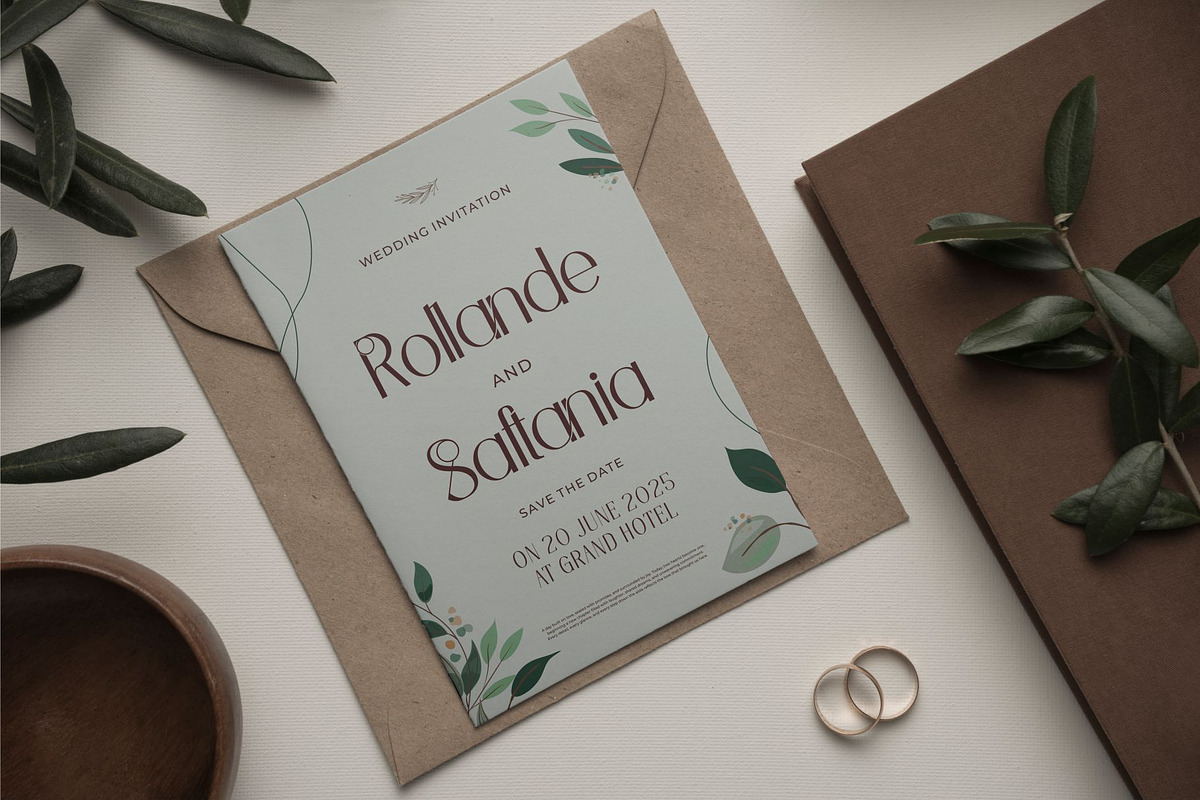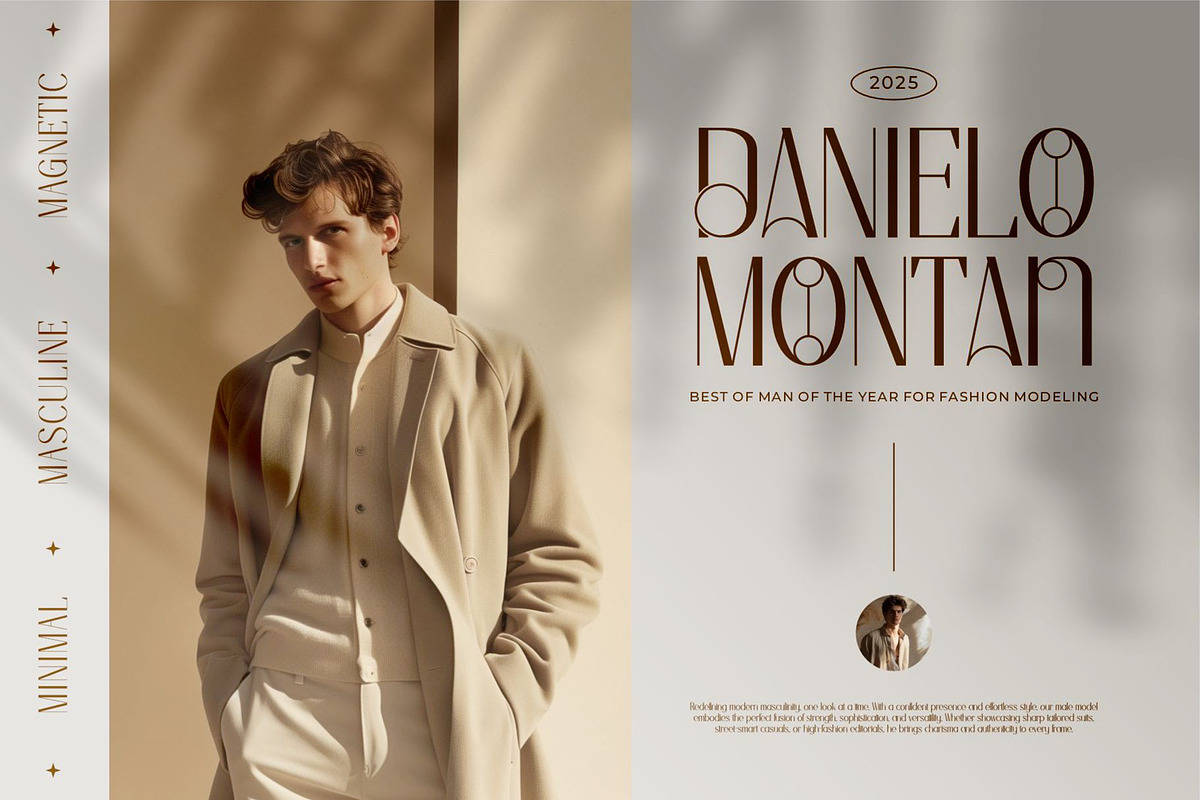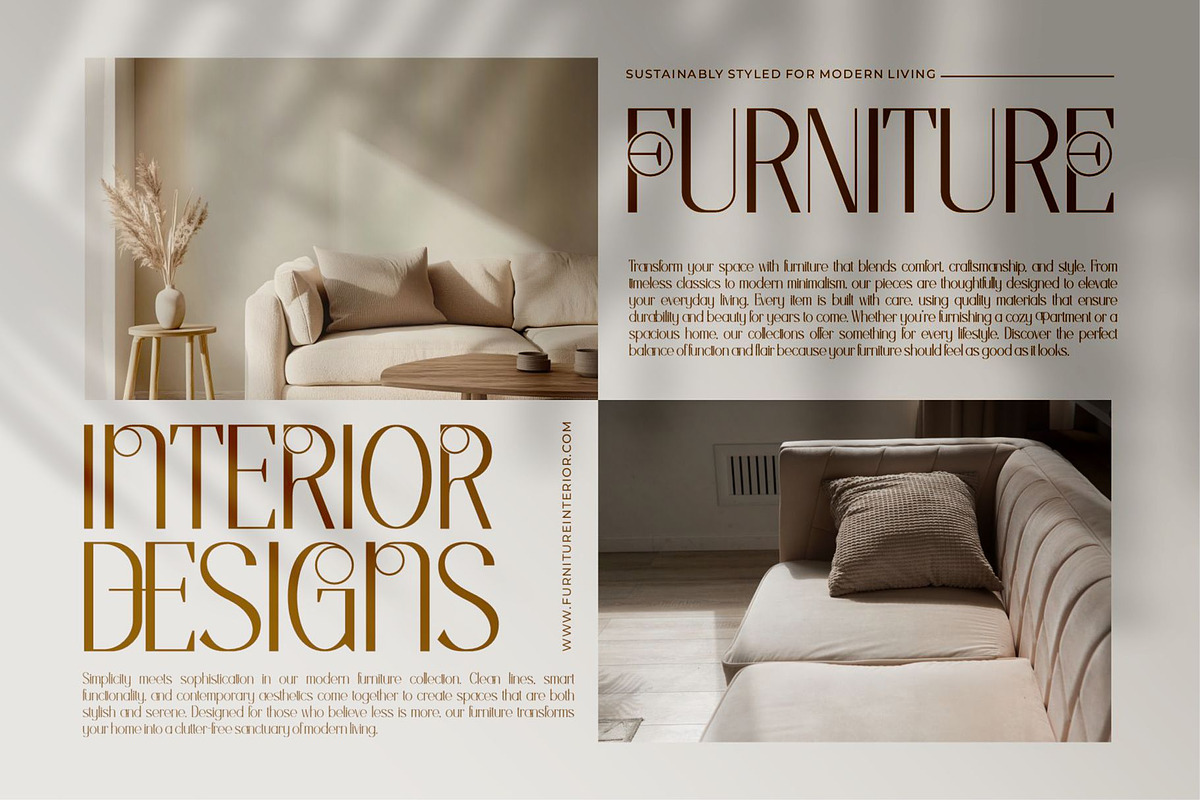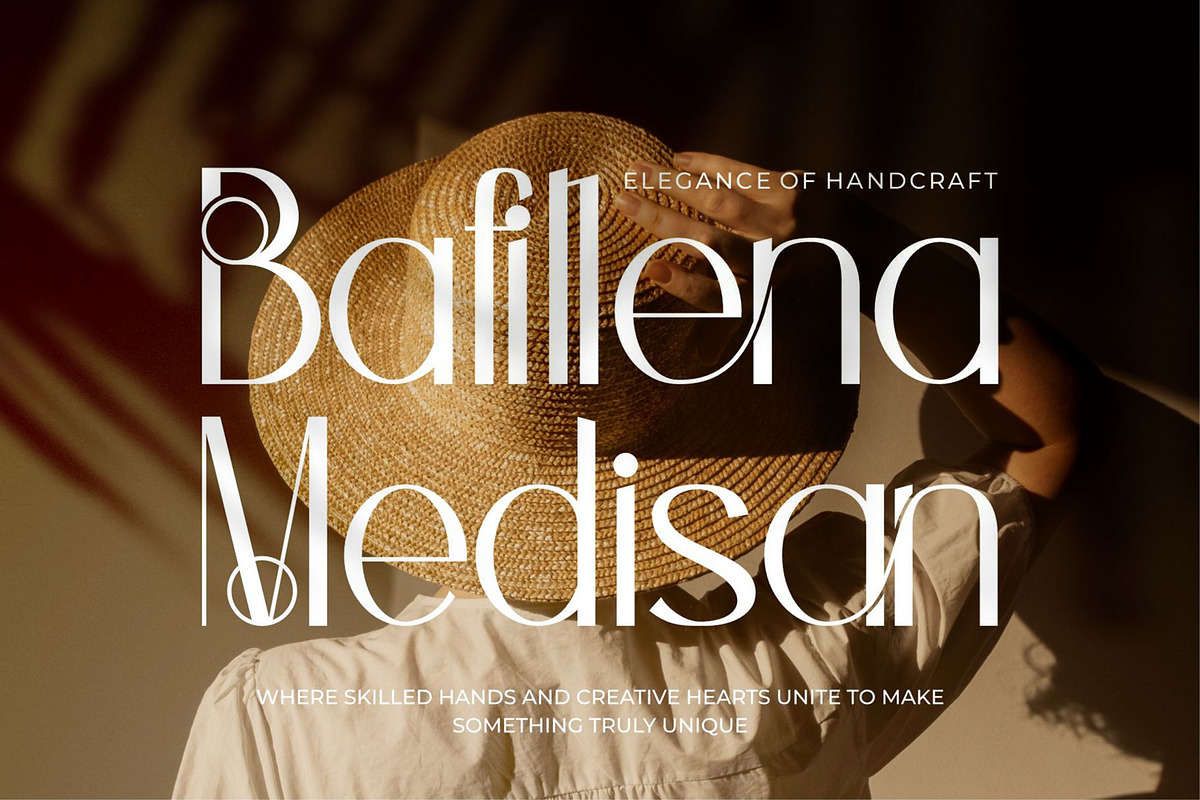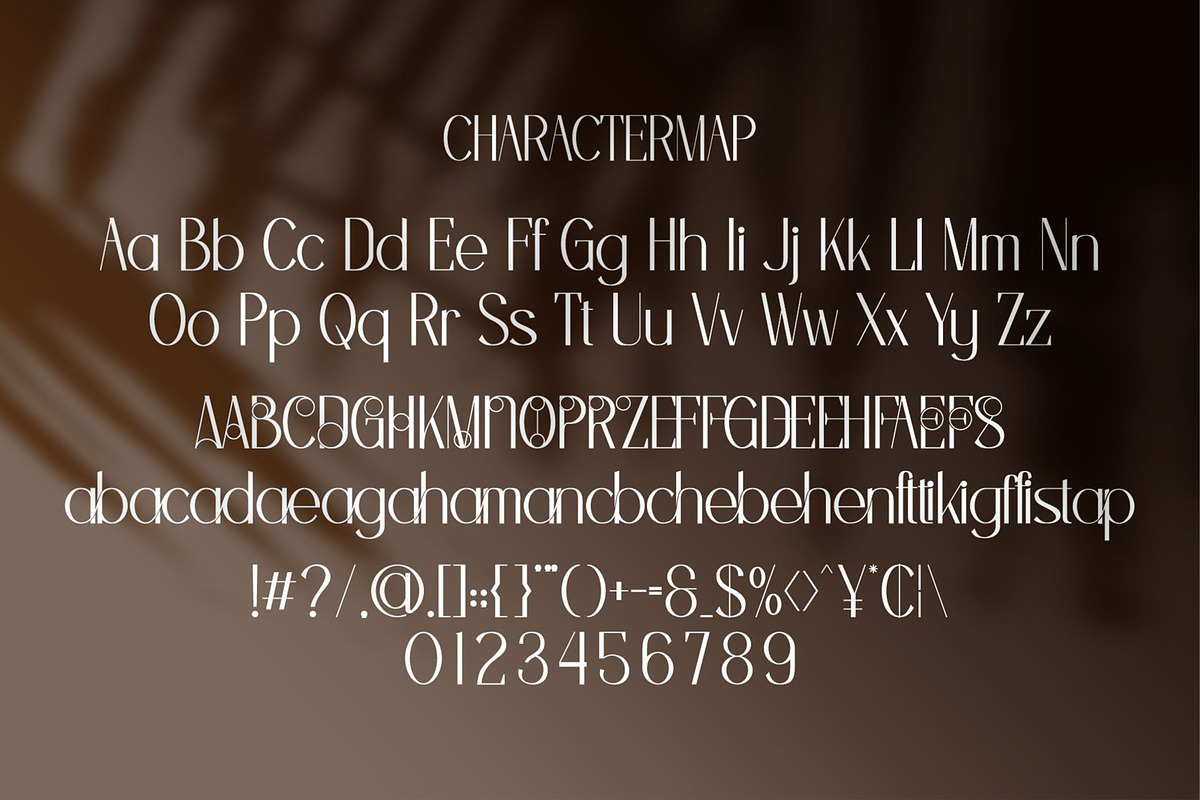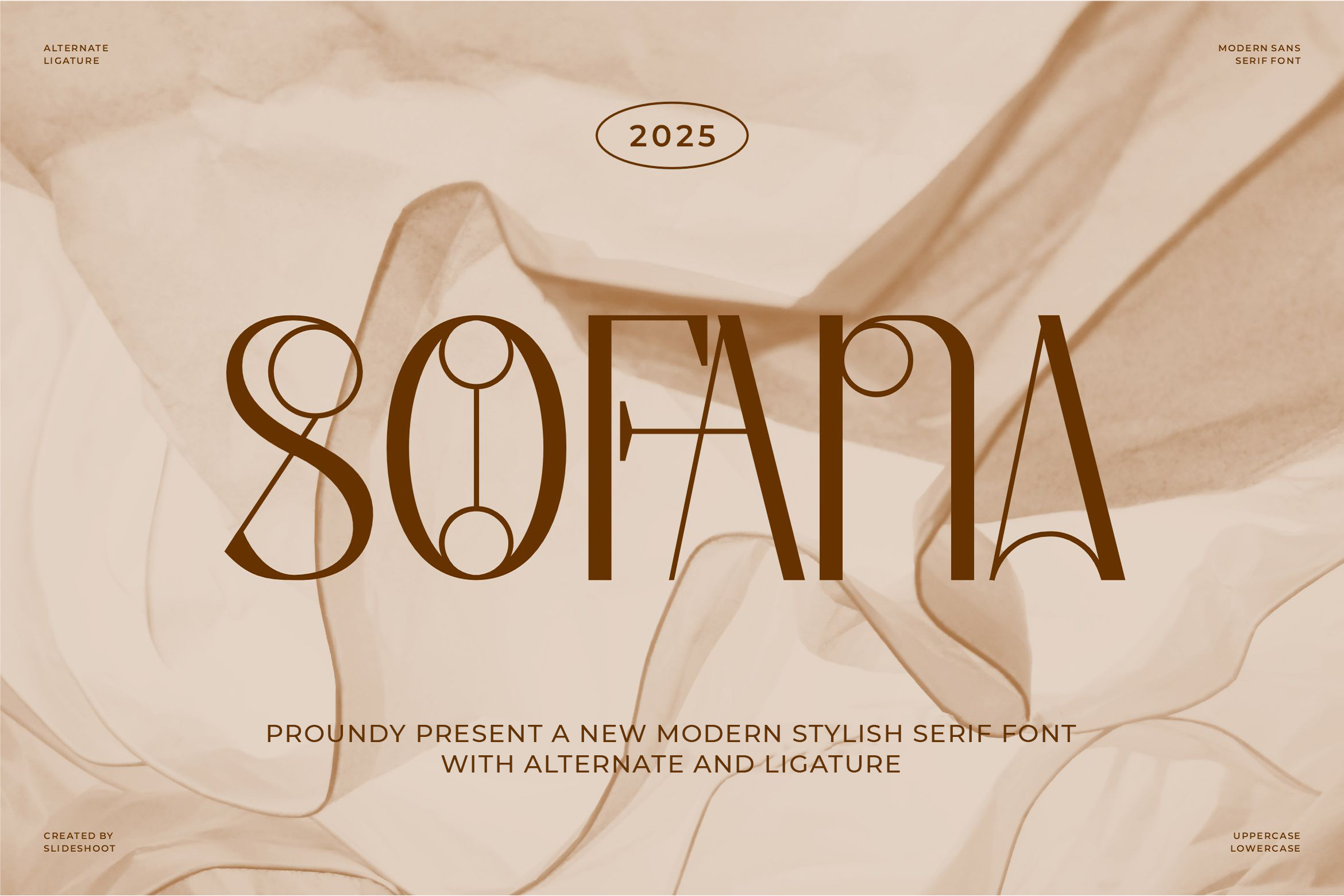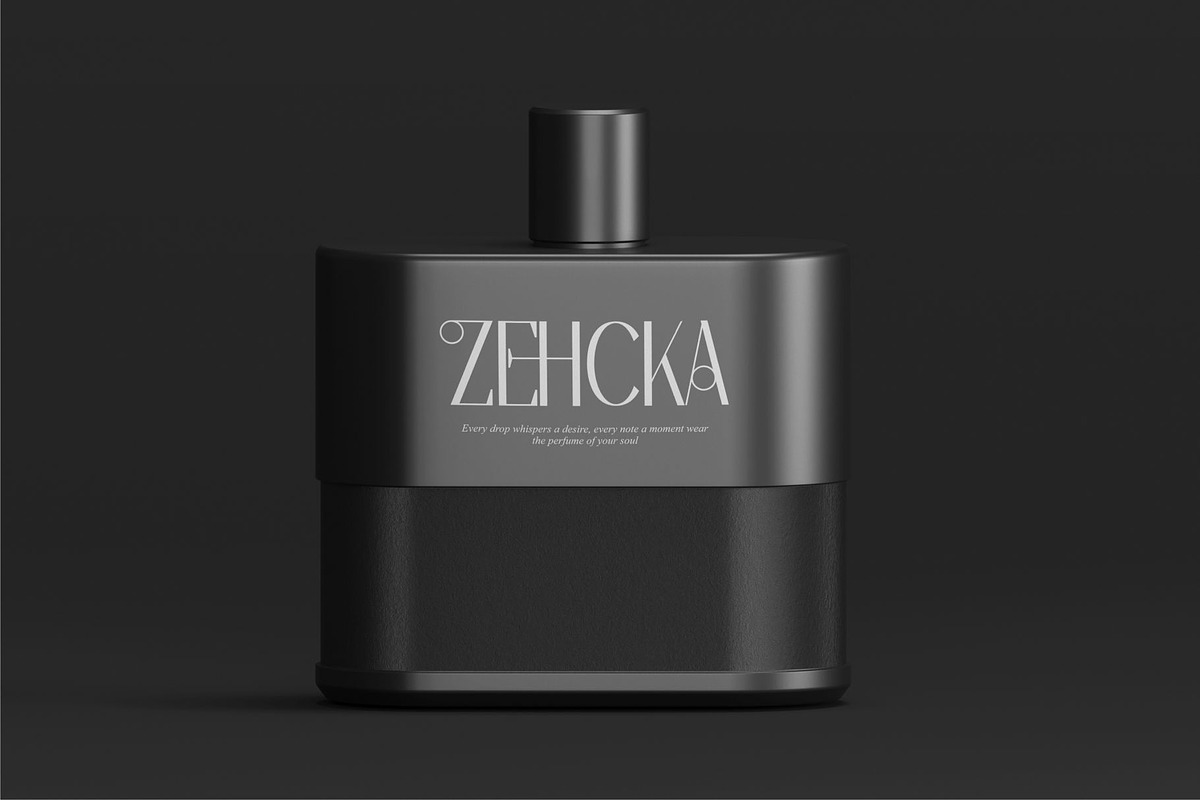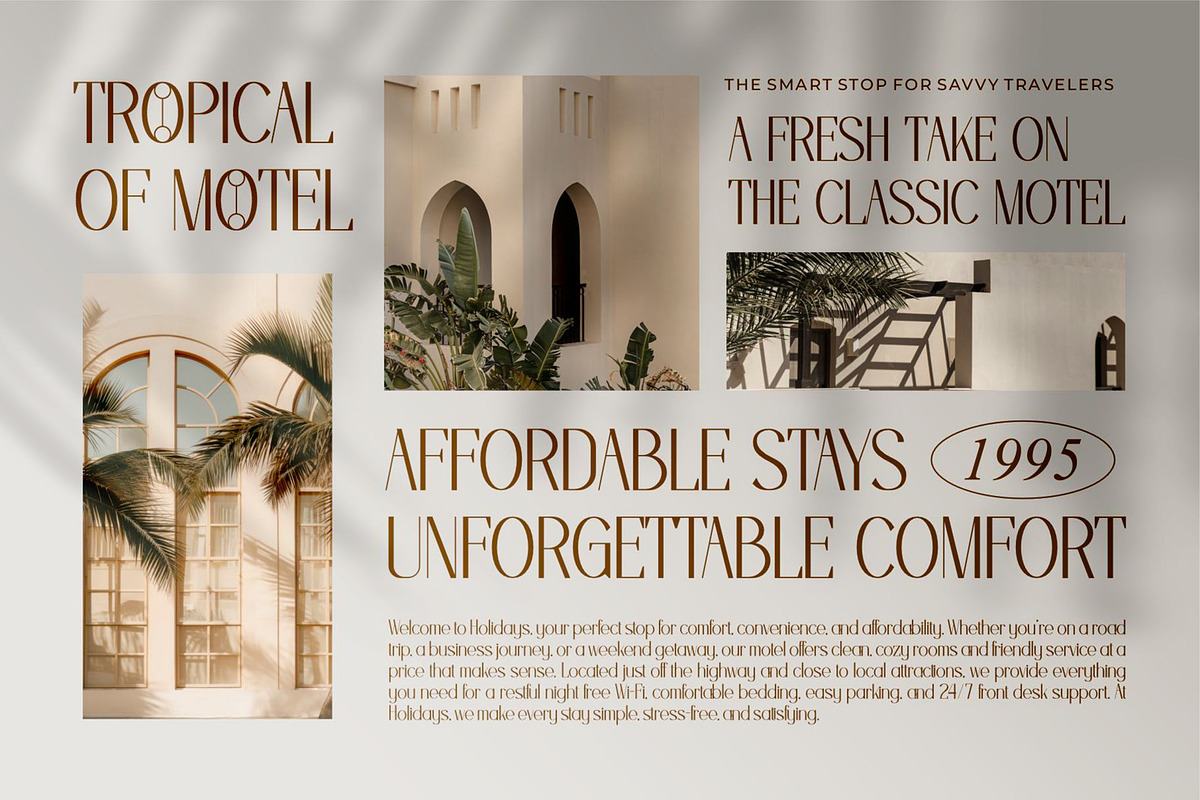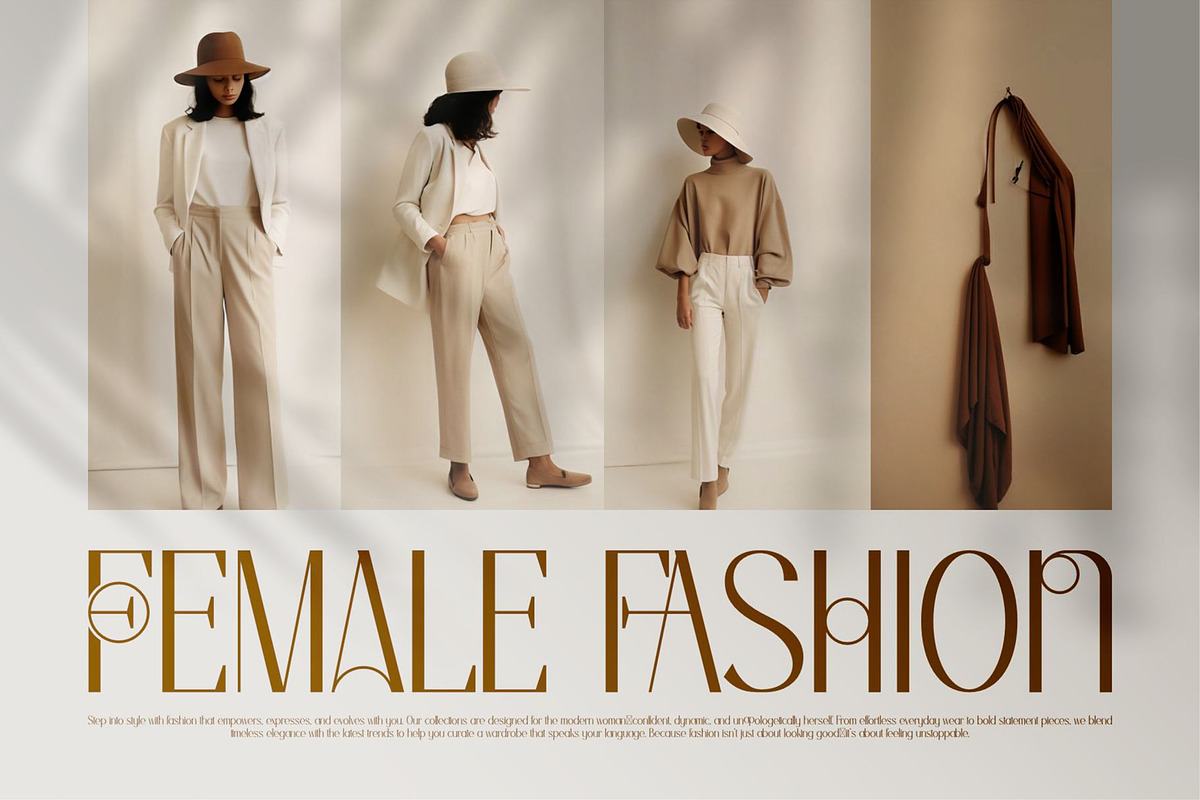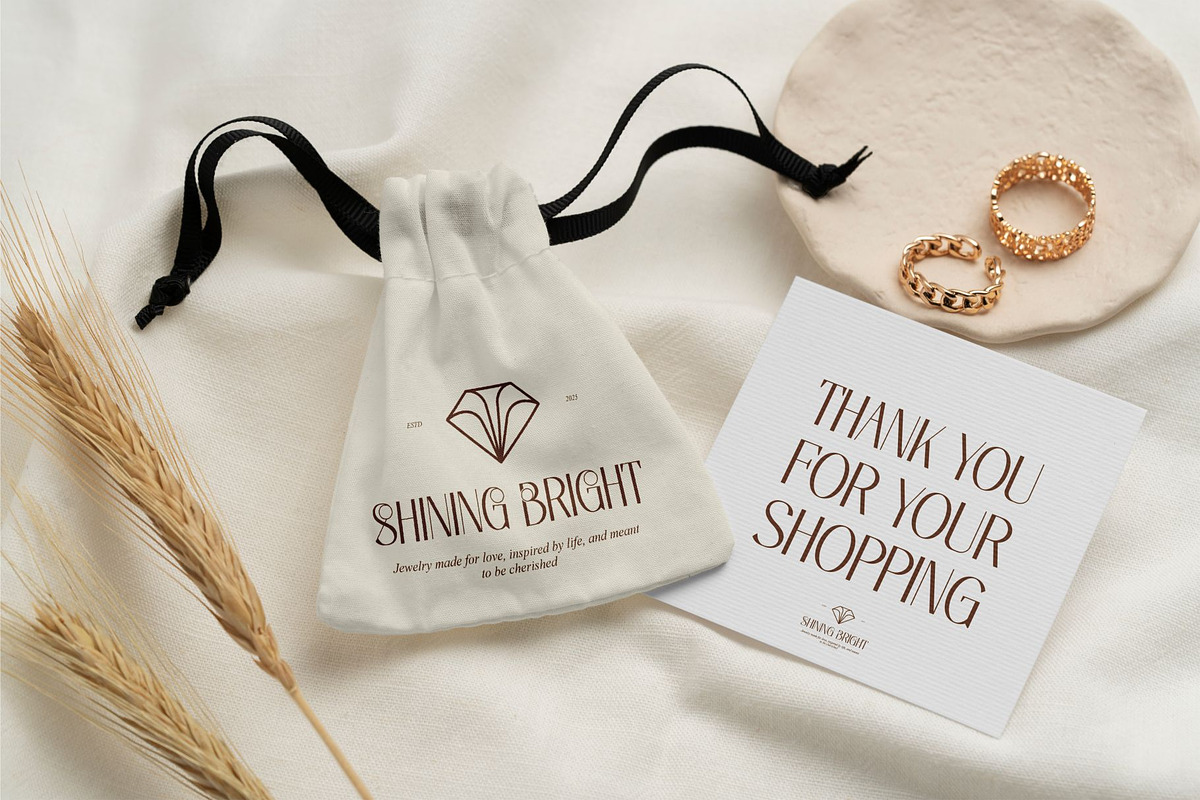
Sofana || Modern Sans Serif Font
Introducing Sofana is modern sans serif font, trendy, elegant and stylish font. It has a unique character. It is perfect to be combined with invitation card designs, company logos, movie titles, movie names, business cards, book titles, brand names and various other designs.